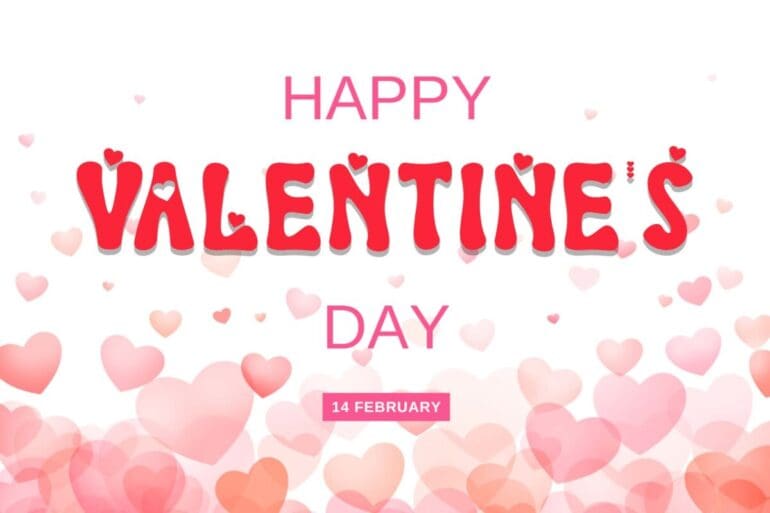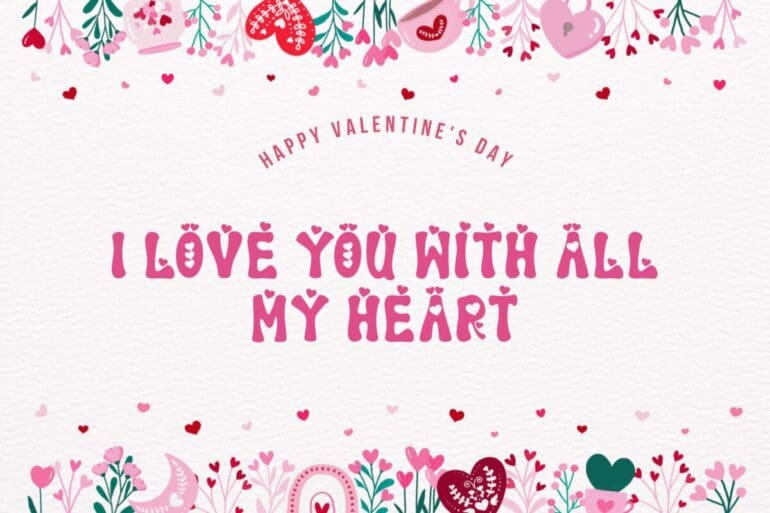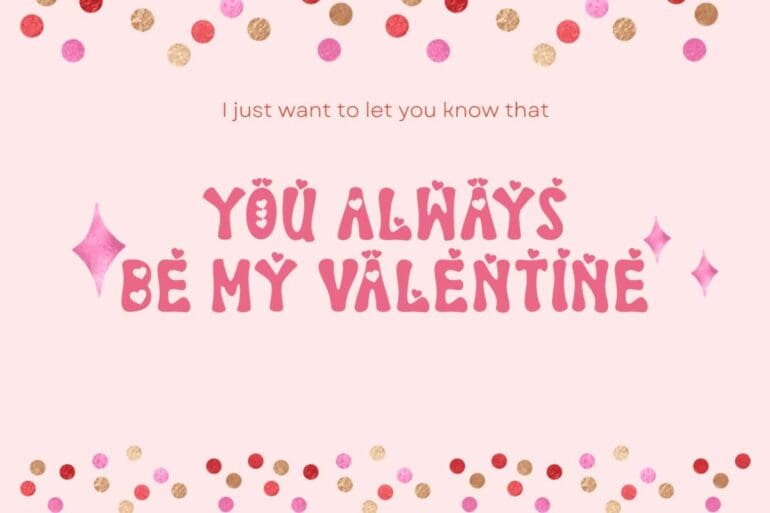
Pink Valentine Font
Pink Valentine is a retro Display Font with hearts on the letters. It is suitable for Valentine’s Day, Winter, Christmas, Easter, spring, summer, or other special occasions that celebrate love!